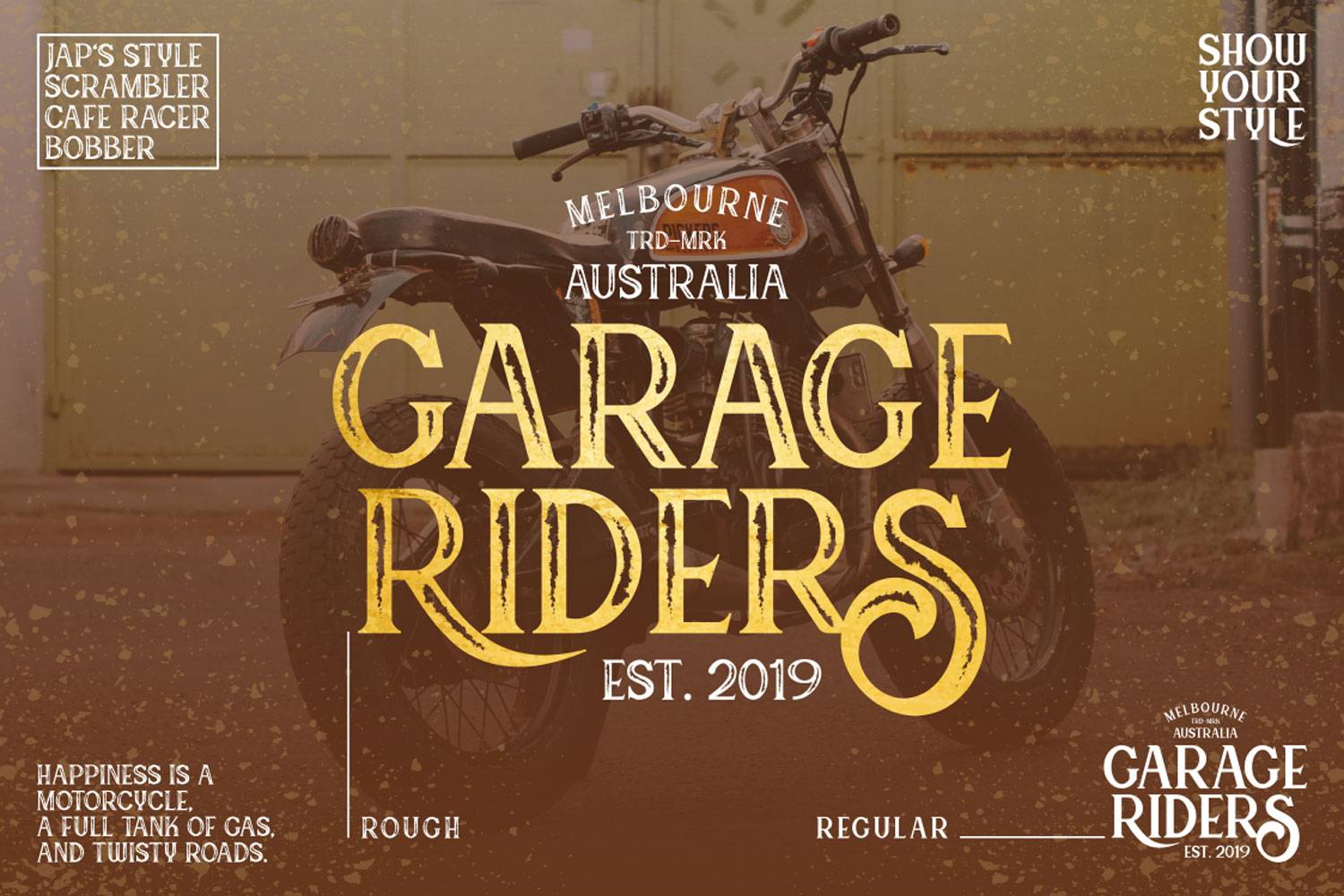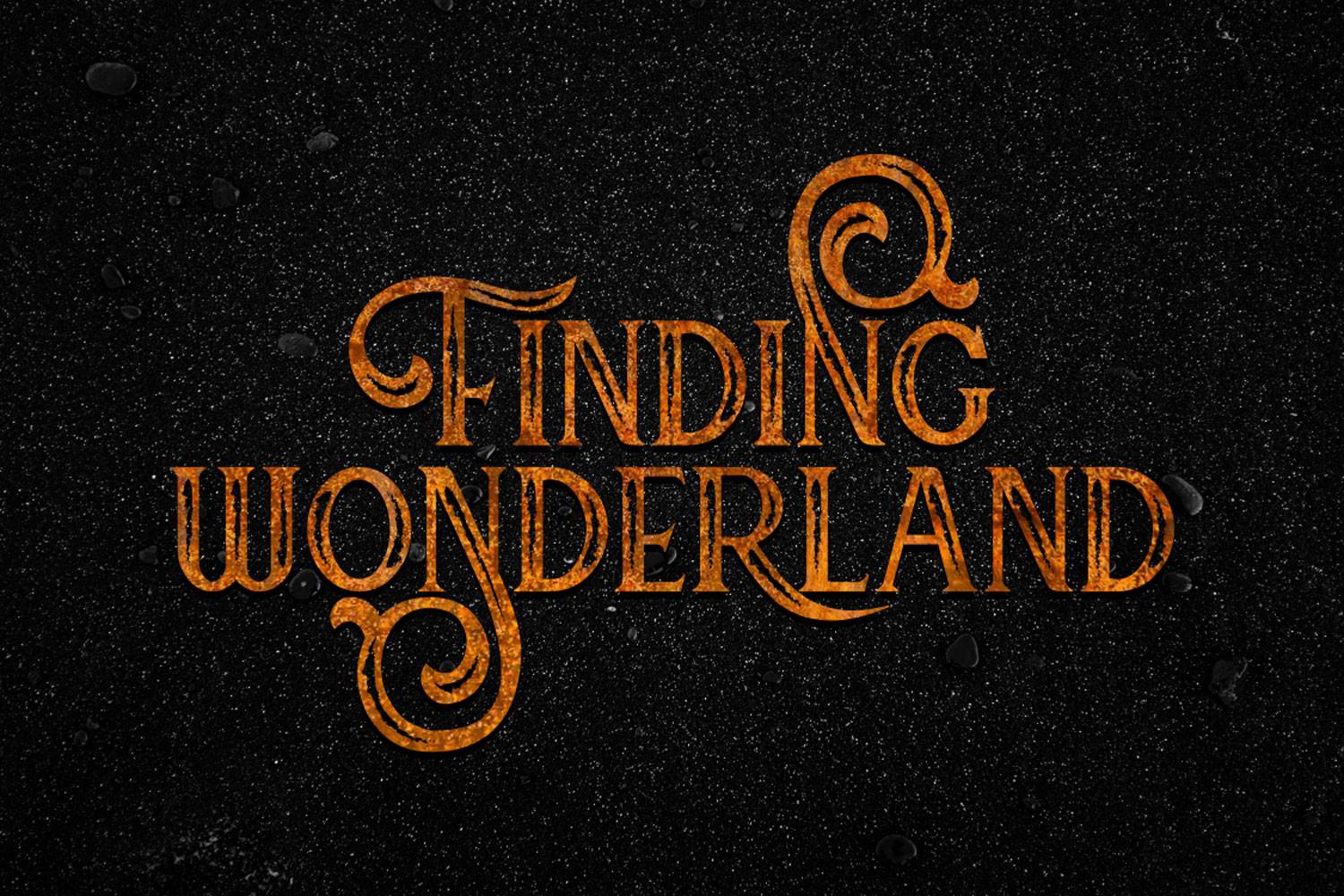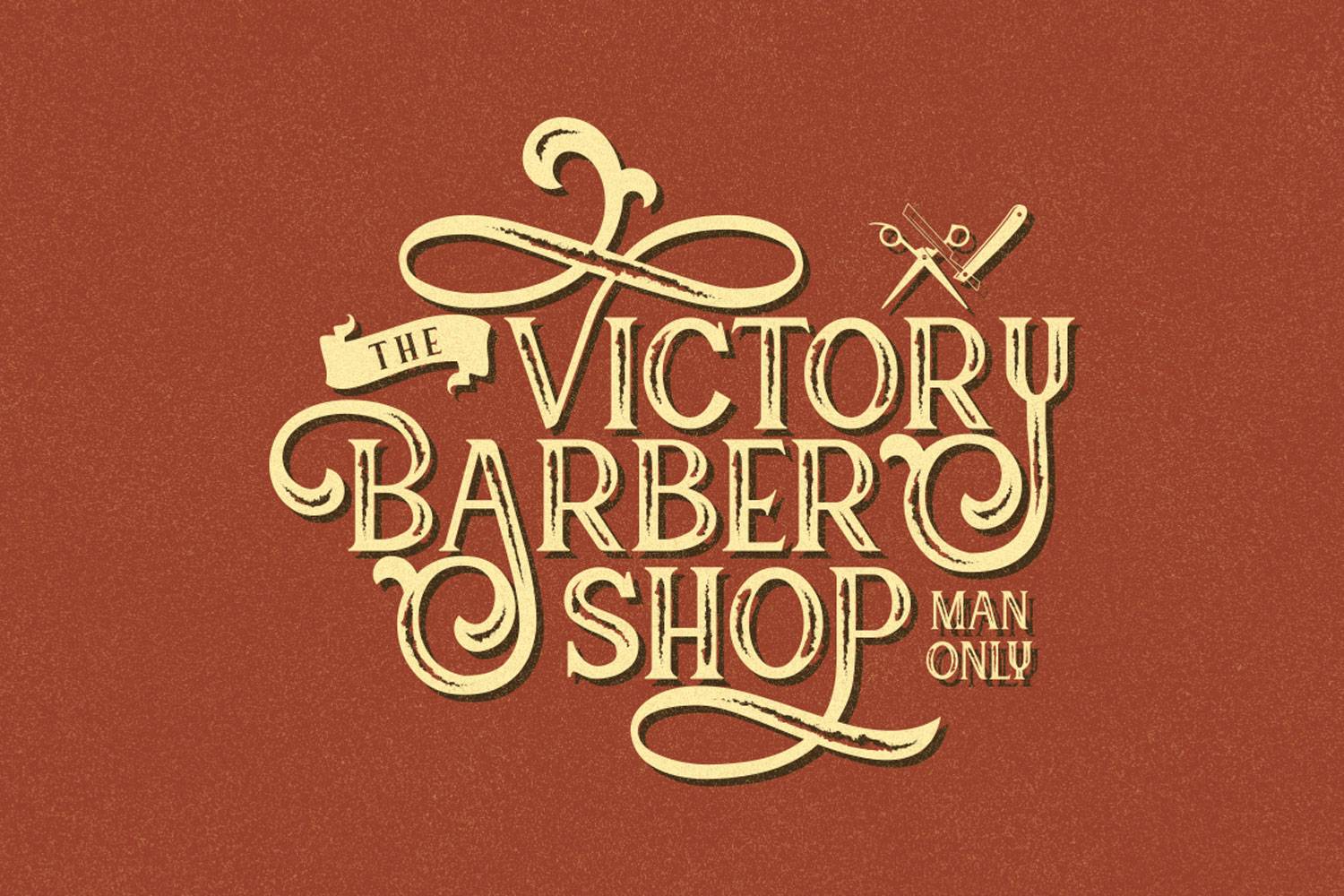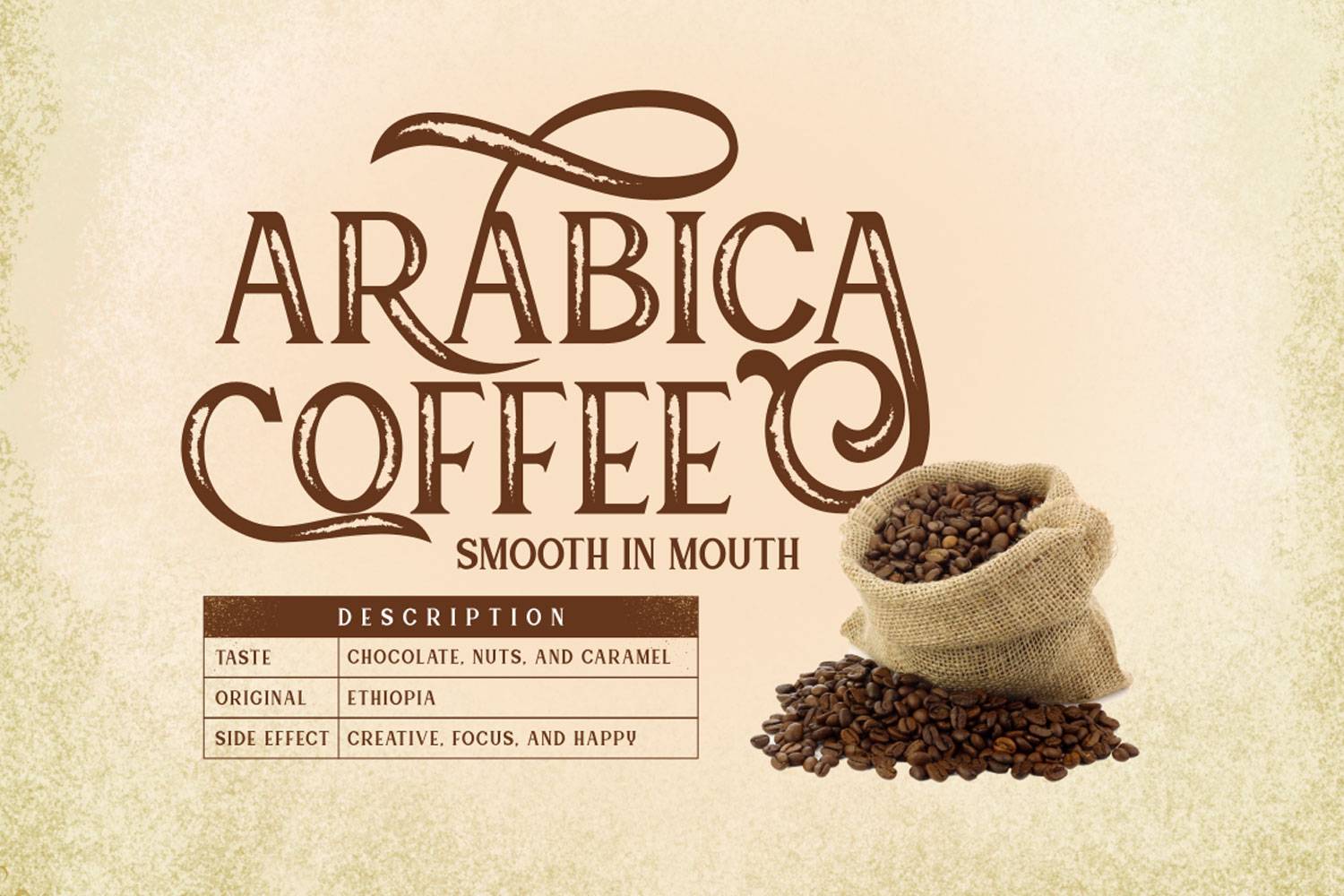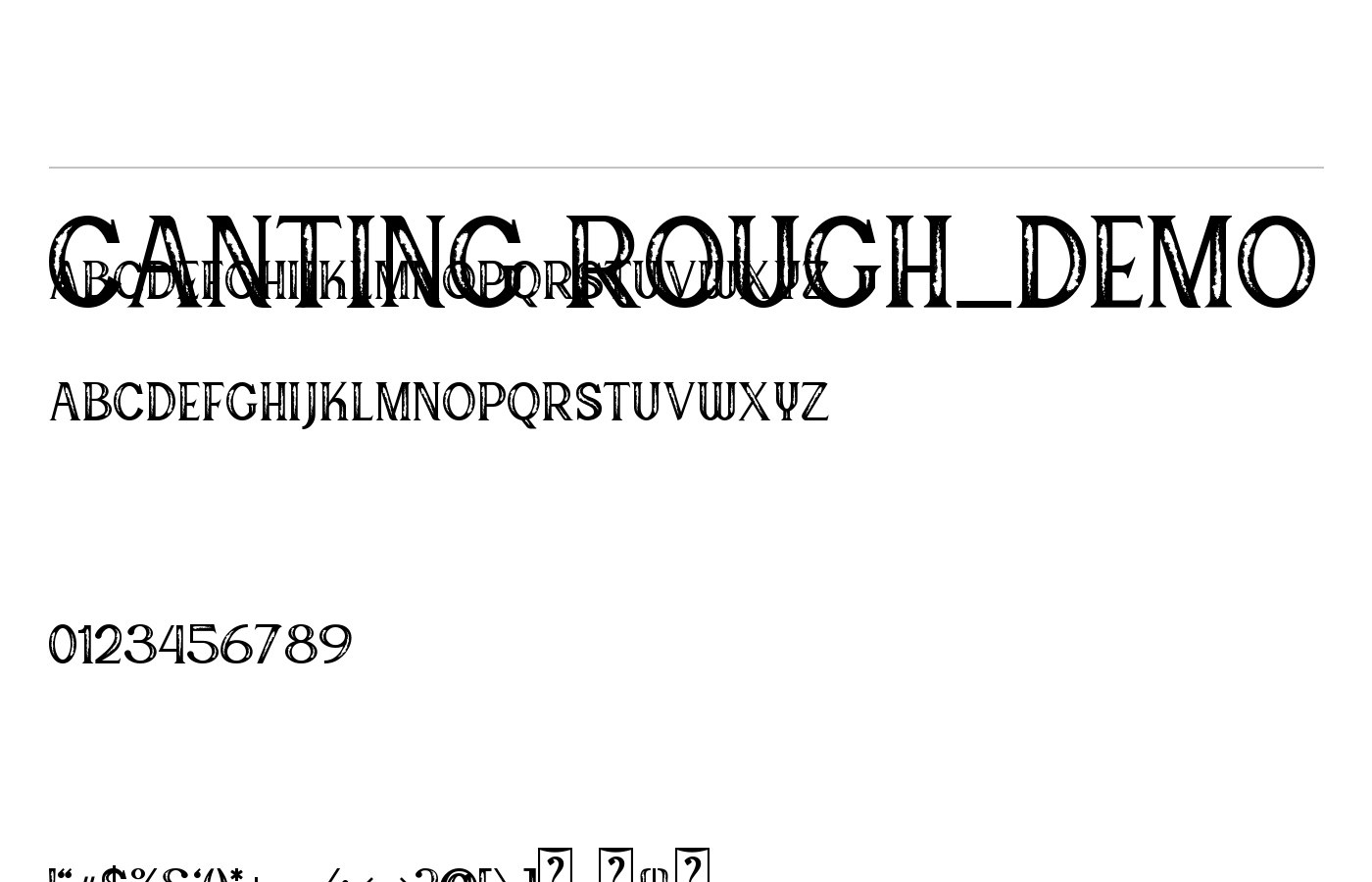
Canting Rough is a distinctive serif font with a vintage and distressed character, featuring high contrast between thick and thin strokes and elegant, sharp serifs. Its all-uppercase design, narrow proportions, and rough texture evoke an old-fashioned yet bold personality, making it ideal for eye-catching headlines, posters, and branding that seek a rustic or antique feel with a modern edge. This font works well in creative projects aiming to convey a sense of history, individuality, and artistic flair.
Canting Font
About Canting Font
| Font family | Canting Font |
| Release date | 2019-02-03 |
| Designer | Omotu Studio 2019 |